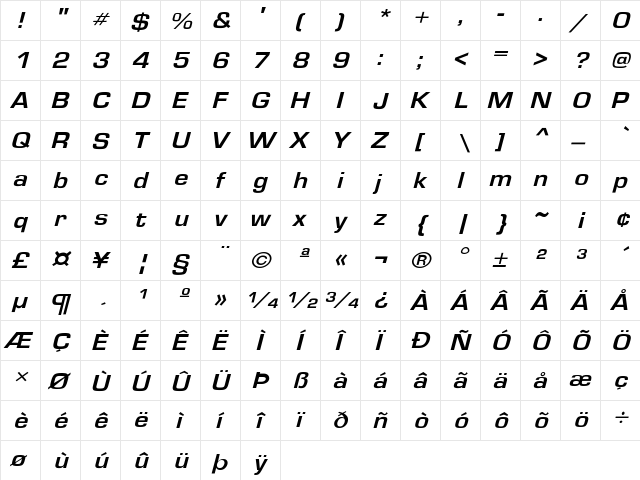
EurostileExtObl-Bold Regular
Design Context for EurostileExtObl-Bold Typeface
EurostileExtObl-Bold offers clean, dependable letterforms without strong stylistic allegiance, making it a practical choice for designers who need flexibility. Its bold stroke weight gives it real presence on the page.
Pro Tip: Pair EurostileExtObl-Bold with a font of contrasting weight or personality to build a more expressive typographic hierarchy.